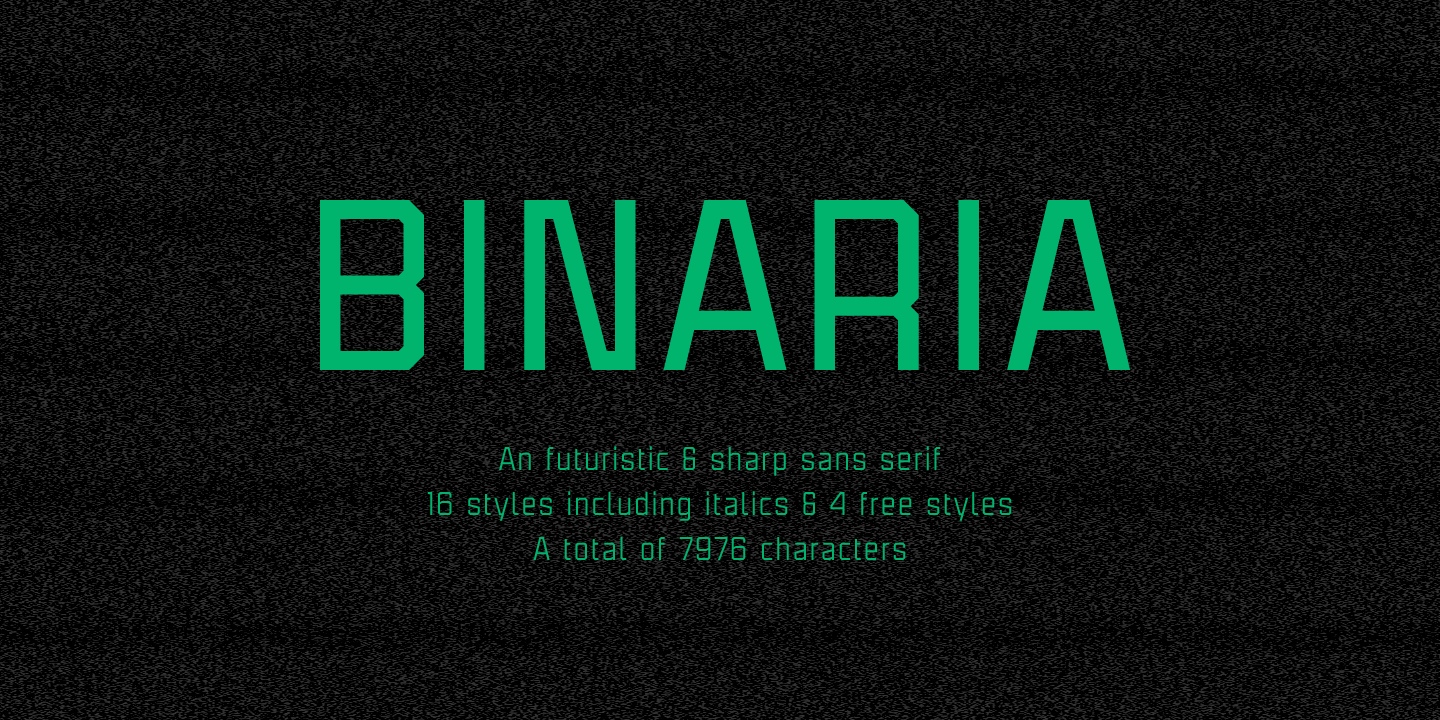
Binaria Font
Binaria Font is perfect for technology companies, digital transformation services, binary data platforms, cybersecurity firms, programming education providers, and systematic computing organizations. Its digital character makes it ideal for software development agencies, artificial intelligence companies, blockchain technology platforms, digital analytics services, computer science institutions, and any project requiring binary precision with digital authenticity and computational excellence appeal.
This font is exciting because it embodies the fundamental language of digital communication and computational logic while delivering exceptional functionality for organizations operating at the intersection of human communication and machine language. The systematically crafted letterforms reflect the binary foundation that underlies all digital technology, creating typography that resonates with audiences who understand and appreciate the elegant simplicity of digital systems.
The Binaria Font family typically includes Light, Regular, Medium, and Bold weights with digital alternates, binary-inspired ligatures, and computational elements that enhance its technological personality. This comprehensive collection enables tech professionals to create authoritative brand systems that maintain digital credibility while offering flexibility for various technology applications requiring both computational authority and contemporary tech market positioning.